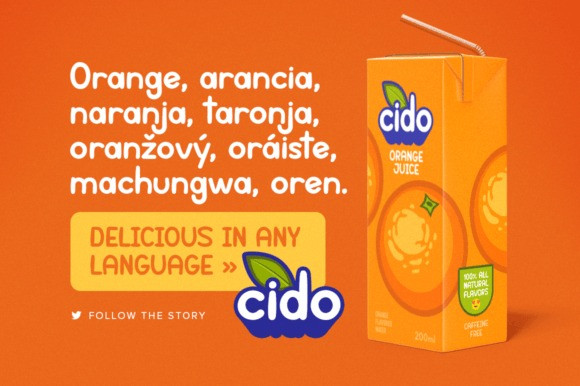
Lola Sans Font
Lola Sans Font is a bold fun font created for children-related themes, with a rounded aesthetic for a handwritten look and feel. Whether you’re using it for crafts, digital design, presentations, or making greeting cards, this font has the potential to become your favorite go-to font, no matter the occasion!